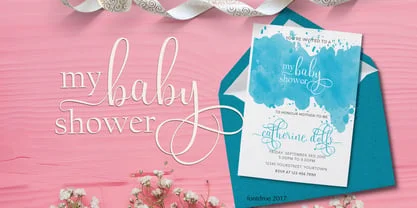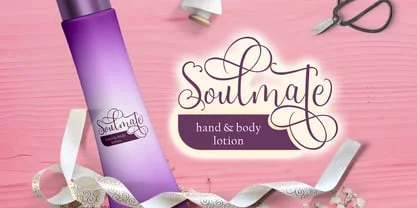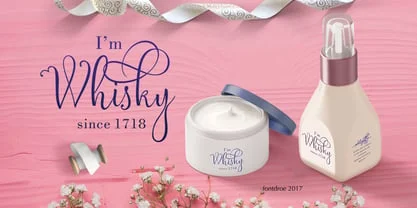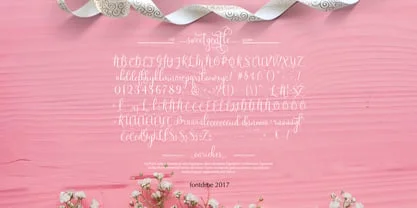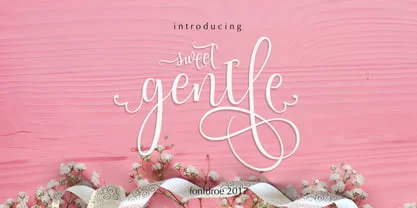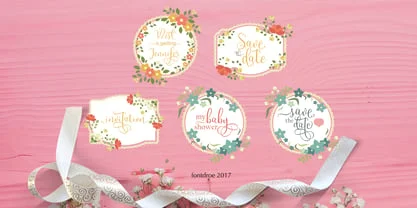
Sweetgentle Font
Few typefaces manage to balance refined proportions and careful stroke modulation with genuine day-to-day practicality. Sweetgentle is one of them. The typeface brings an elegant, calligraphic sensibility to a broad range of creative disciplines, with visual harmony and precise spacing that holds up whether the work is print-first or screen-first.
In practice, Sweetgentle proves particularly effective for social media graphics, feminine branding, perfume labels, bridal materials, high-end cosmetic packaging. Designers reaching for it find that the type decisions feel resolved rather than laboured — a useful quality when client timelines are tight.
The range of applications extends to web design, annual reports, product labels, luxury stationery. That breadth is deliberate: the proportions and spacing were stress-tested across a wide range of mock briefs before the typeface was finalised.
The consistent rhythm of Sweetgentle across a full paragraph creates the kind of even grey value that makes extended reading comfortable, a detail that matters more in long-form content than its subtlety might suggest.
In-house creative teams at consumer brands find Sweetgentle a reliable choice for projects that demand both personality and restraint. The design avoids the self-conscious quirkiness that dates quickly, settling instead for considered distinctiveness that holds up over time.